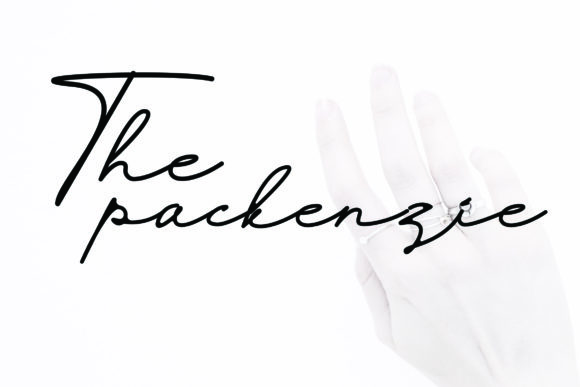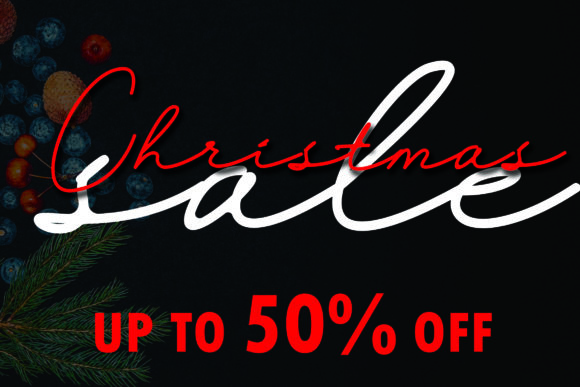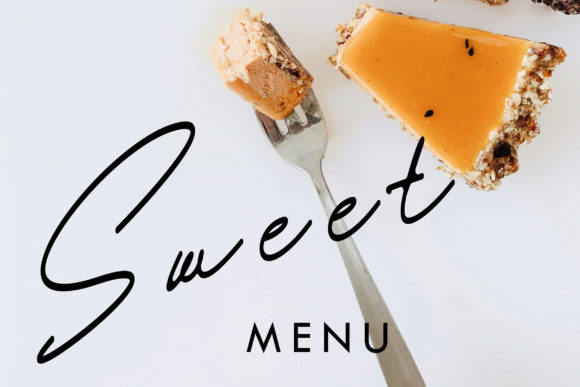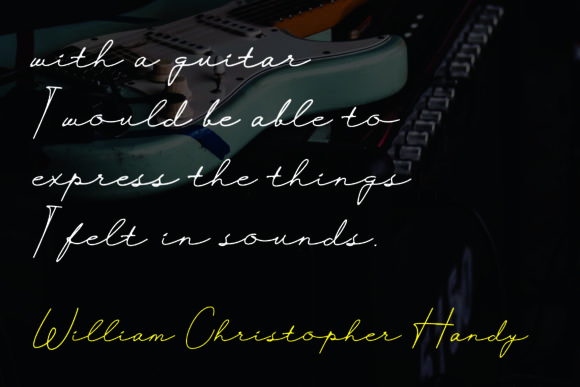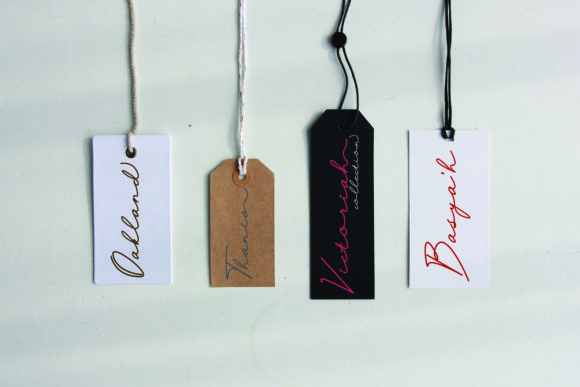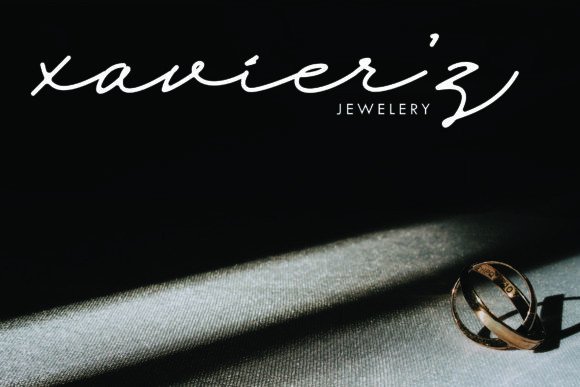
Introduction to Selfiana Tre Font
Selfiana Tre is a fresh and modern script that will add a unique look to any design idea.
Selfiana Tre is a fresh and modern script that will add a unique look to any design idea!
Key Features of Selfiana Tre Font
Why Choose Selfiana Tre Font?
Selfiana Tre Font offers exceptional quality and versatility, making it a valuable addition to your design toolkit. Whether you’re creating for personal projects or commercial use, Selfiana Tre Font delivers professional results.